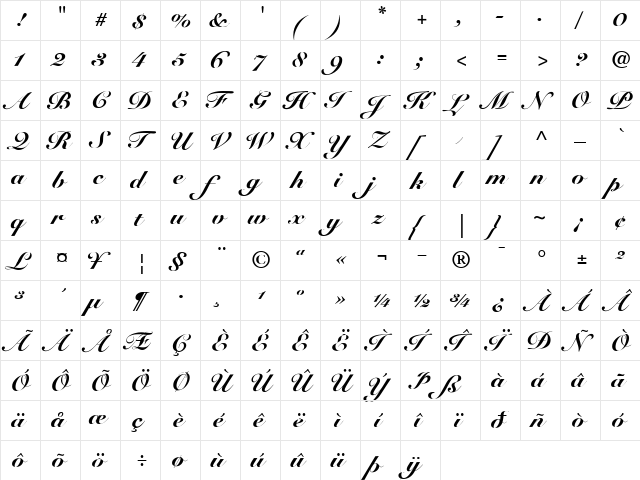
SnellRoundhandScriptBlack Regular
Design Context for SnellRoundhandScriptBlack Typeface
SnellRoundhandScriptBlack flows with the natural rhythm of handwritten lettering, making it ideal for designs that call for warmth and personal expression.
Font Pairing: Combine SnellRoundhandScriptBlack with a simple geometric sans for maximum contrast — the tension between flowing curves and clean structure is a classic typographic pairing.
Pro Tip: Use SnellRoundhandScriptBlack for short runs of text — names, titles, or taglines. Extended body copy in script faces tires the eye quickly.